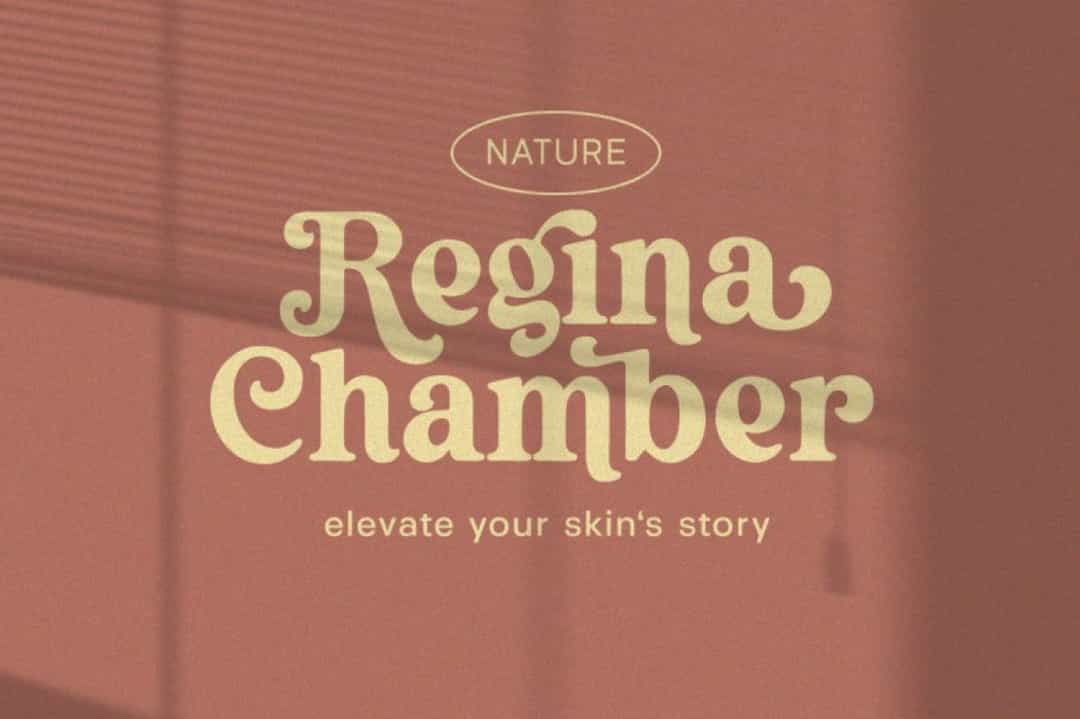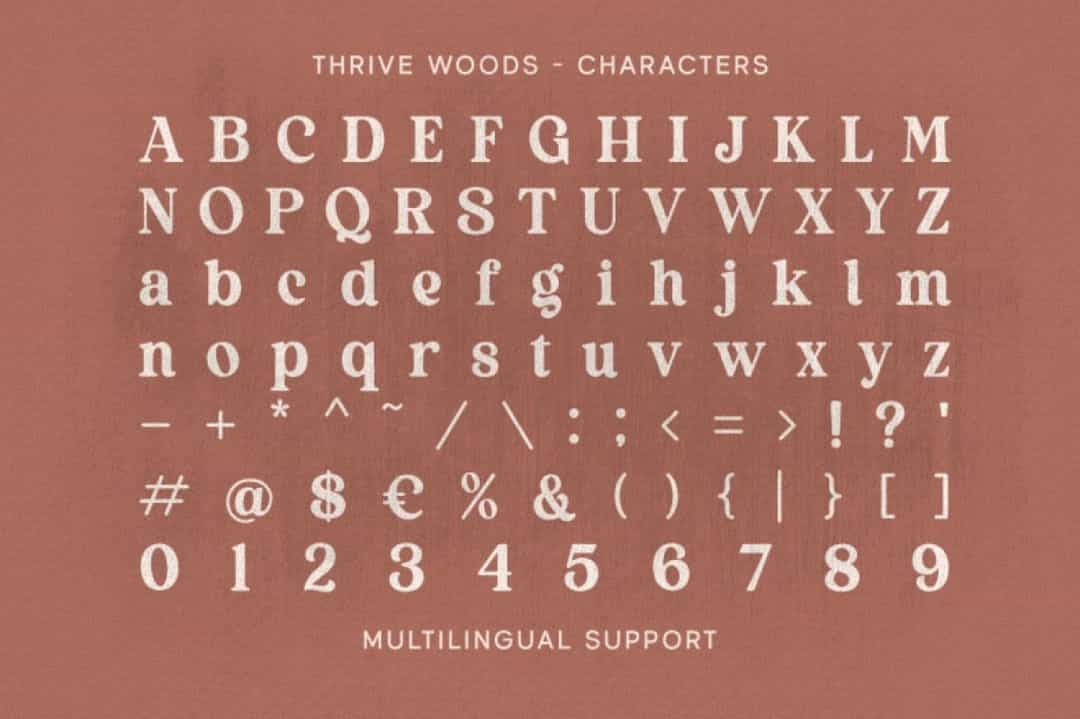
“Thrive” Wood is an attractive natural serif typeface designed for use in logos and formal designs such as invitations labels books magazines logos wedding greeting cards makeup novels stationery labels or any form of advertisement.